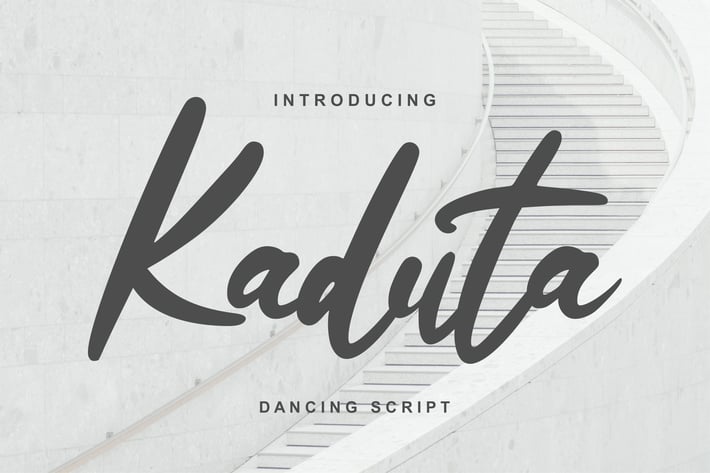
Kaduta | Dancing Script Font
Kaduta | Dancing Script Font with a calligraphy style, So beautiful on invitation like greeting cards, branding materials, business cards, quotes, posters, and more!